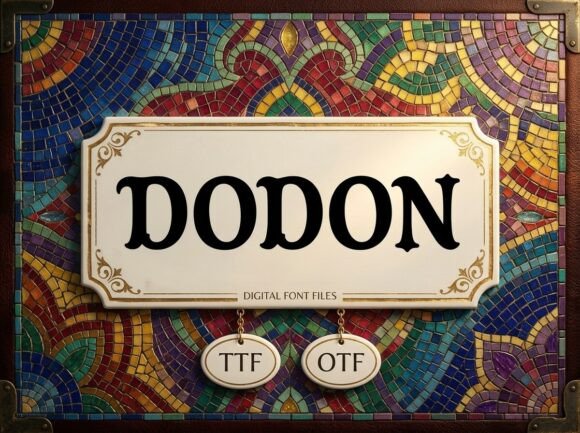
Unleash the Magic of Dodon Font: A Vintage Decorative Serif for the Modern Era
Step into a realm of classic enchantment with Dodon, a vintage decorative serif that captures a “mystical-and-majestic” soul. This stunning font is designed to transport you to a world of wonder and awe, where the boundaries between reality and fantasy blur. With its unique blend of Victorian showmanship and modern fantasy branding, Dodon is the perfect choice for designers and crafters looking to add a touch of magic to their projects.
The Distinctive Characteristics of Dodon Font
Dodon font features heavy, blocky letterforms that are uniquely characterized by rhythmic, sweeping curves and sharp, thorn-like spurs. These distinctive elements bridge the gap between Victorian showmanship and modern fantasy branding, giving Dodon a bold structural weight and storied personality that is hard to ignore. The font’s rhythmic curves and sharp spurs evoke a sense of mysticism and wonder, making it perfect for projects that require a touch of the extraordinary.
Perfect for Independent Artisan Spirits Labels and Occult-Themed Logos
Dodon font is the premier choice for independent artisan spirits labels and boutique occult-themed logos. Its bold and majestic design makes it perfect for creating eye-catching labels and logos that stand out from the crowd. Whether you’re creating a label for a craft beer, wine, or spirits, or designing a logo for an occult-themed business, Dodon font is sure to make a lasting impression.
Elevate Your Epic Fantasy Book Covers with Dodon Font
If you’re an author or designer looking to create an epic fantasy book cover, Dodon font is an excellent choice. Its bold structural weight and storied personality make it perfect for creating eye-catching covers that capture the essence of your story. Whether you’re writing a high fantasy novel or a dark and gritty urban fantasy, Dodon font is sure to help you create a cover that stands out from the crowd.
Make a Statement with Dodon Font on Social Media
Dodon font is also perfect for creating high-impact social media headers that make a statement. Its bold and majestic design makes it perfect for grabbing attention and drawing people in. Whether you’re promoting a business, product, or service, Dodon font is sure to help you create social media headers that stand out from the crowd.
Why Choose Dodon Font?
So why choose Dodon font for your next project? Here are just a few reasons:
- Unique and distinctive design: Dodon font features a unique blend of Victorian showmanship and modern fantasy branding that sets it apart from other fonts.
- Bold structural weight: Dodon’s heavy, blocky letterforms give it a bold structural weight that commands attention.
- Storied personality: Dodon’s rhythmic curves and sharp spurs evoke a sense of mysticism and wonder, making it perfect for projects that require a touch of the extraordinary.
- Versatile: Dodon font is perfect for a wide range of projects, from independent artisan spirits labels to epic fantasy book covers and social media headers.
Get Ready to Cast a Spell with Dodon Font
If you’re looking for a font that will add a touch of magic to your projects, look no further than Dodon font. With its unique and distinctive design, bold structural weight, and storied personality, Dodon is the perfect choice for designers and crafters looking to create something truly special. So why wait? Get ready to cast a spell with Dodon font and take your projects to the next level.
In conclusion, Dodon font is a vintage decorative serif that captures a “mystical-and-majestic” soul. Its unique blend of Victorian showmanship and modern fantasy branding makes it perfect for a wide range of projects, from independent artisan spirits labels to epic fantasy book covers and social media headers. With its bold structural weight and storied personality, Dodon font is sure to make a lasting impression. So why wait? Try Dodon font today and see the magic for yourself.